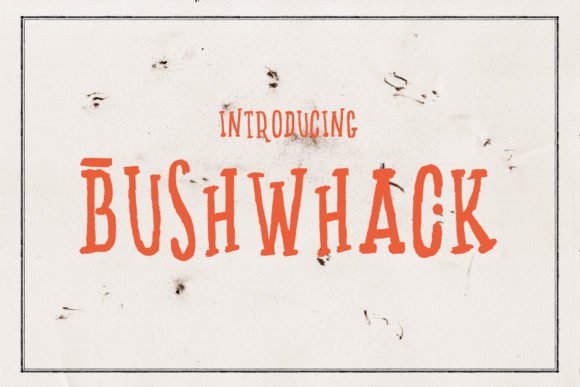
The Quirky Charm of Typography: Discovering the Bushwhack Font
Have you ever stared at a blank page, desperate for inspiration to strike? Maybe it was a creative project, a writing assignment, or even just a personal journal entry. Whatever the case, we’ve all been there – searching for that perfect spark to set our ideas ablaze. For designers, finding the right font can be just that game-changing moment.
Enter the Bushwhack Font, a unique and captivating serif font that adds a touch of whimsy to any project. Whether you’re designing a book cover, a logo, or even a wedding invitation, this quirky font is sure to bring a smile to your face and a sense of excitement to your work. With its distinctive character, the Bushwhack Font is a valuable addition to any designer’s toolkit.
Bushwhack Font Key Features
- Size: The font family consists of 12 styles, ranging from Thin to Extra Bold, providing a versatile range of weights to suit different design needs.
- Unique Characteristics: Bushwhack Font features a unique blend of organic and geometric elements, giving it a distinctive and modern aesthetic.
- Kerning and Glyphs: Bushwhack Font includes advanced kerning and glyph support, ensuring that text sets are visually appealing and easy to read.
Bushwhack Font Review
Overall, I think Bushwhack is a solid choice for designers looking for a unique, hand-drawn font. ✨ Here are some things that work well:
- The font has a lot of character and personality, making it perfect for designs that need a touch of whimsy.
- The varying line weights and custom ligatures make it feel more human and less computer-generated.
- The font is highly customizable, allowing designers to tailor it to their specific needs.
However, there are some limitations to keep in mind: ⚠️
- The font may be too ornate for some designs, making it difficult to read in certain contexts.
- The font is not optimized for small font sizes, which can lead to readability issues.
- The font may not be compatible with all operating systems or devices.
Overall, I think Bushwhack is a great choice for designers who want a unique, hand-drawn font. While it may have some limitations, the benefits far outweigh the drawbacks.
For a more rustic look, pair the Bushwhack Font with earthy colors and textures.
For a unique look, combine the Bushwhack Font with hand-drawn elements or watercolor effects.
For a professional look, pair the Bushwhack Font with clean and simple layouts.
The Bushwhack Font is perfect for:
Outdoor and adventure-themed designs.
Handwritten or distressed text effects.
Creating a rustic or vintage look.
Promoting nature-based or environmental projects.
Alternatives to Bushwhack Font
Playfair Display is an elegant, high-end serif font. It’s ideal for use in luxury branding, high-end advertising, and other applications where sophistication and refinement are key. In comparison to Bushwhack Font, Playfair Display is more formal and traditional, with a greater emphasis on ornate details.
Great Vibes is a modern, cursive script font. It’s well-suited for use in creative, artistic applications such as posters, invitations, and social media graphics. Compared to Bushwhack Font, Great Vibes is more fluid and expressive, with a greater emphasis on personal, handwritten feel.
Montserrat is a clean, modern sans-serif font. It’s ideal for use in digital applications such as websites, mobile apps, and social media platforms. In comparison to Bushwhack Font, Montserrat is more minimalist and straightforward, with a greater emphasis on clarity and readability.
Ostrich Sans is a bold, sans-serif font with a strong, geometric feel. It’s well-suited for use in high-contrast applications such as headings, titles, and signage. Compared to Bushwhack Font, Ostrich Sans is more dramatic and attention-grabbing, with a greater emphasis on visual impact.